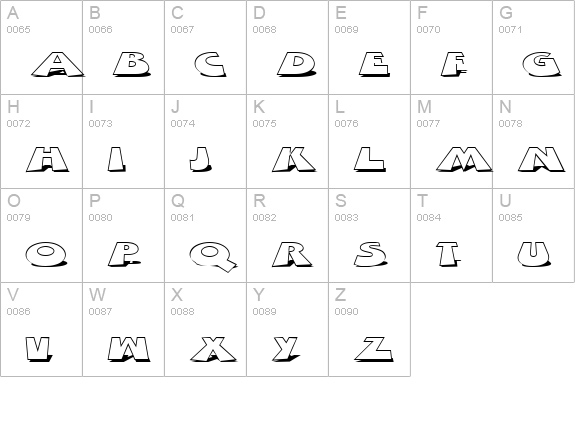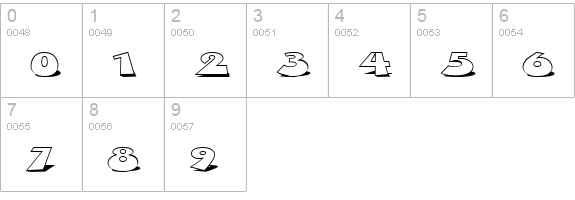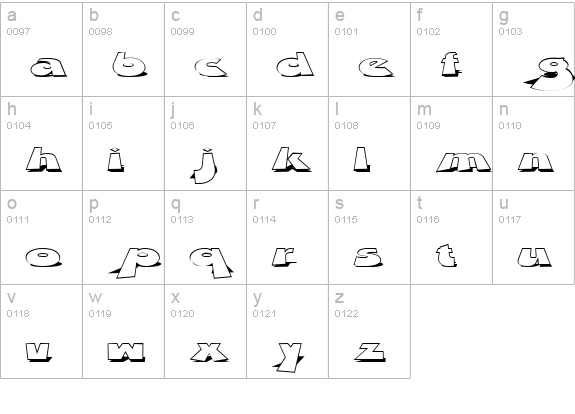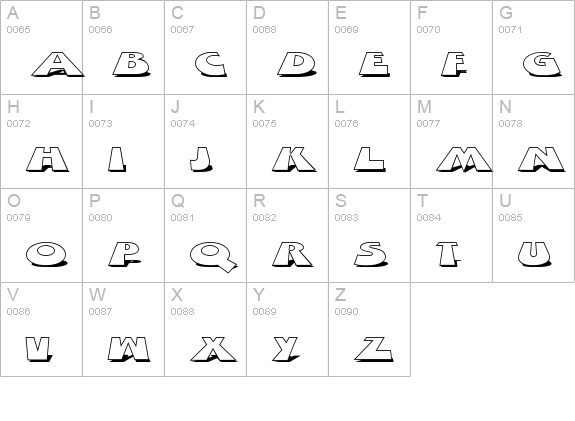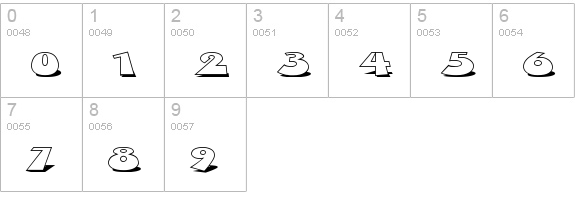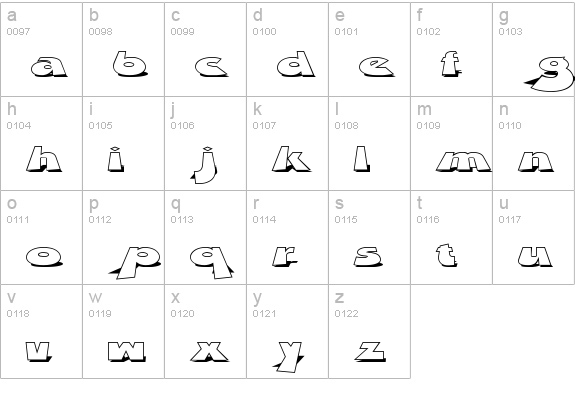
Z Dabble Down Font Details
Z Dabble Down font is a unique and playful display typeface that adds a touch of whimsy to any design project. With its quirky letterforms and charming aesthetic, this font is perfect for creating eye-catching headlines, branding materials, and more. The free-spirited nature of Z Dabble Down makes it versatile and suitable for a wide range of applications. Best of all, Z Dabble Down font is freely available to download at FontsMarket.com, allowing designers and creatives to access this delightful typeface at no cost. Whether you're working on a personal project or a client commission, Z Dabble Down font is sure to bring a fun and creative element to your work. Let your imagination run wild with this free-spirited font and watch your designs come to life.